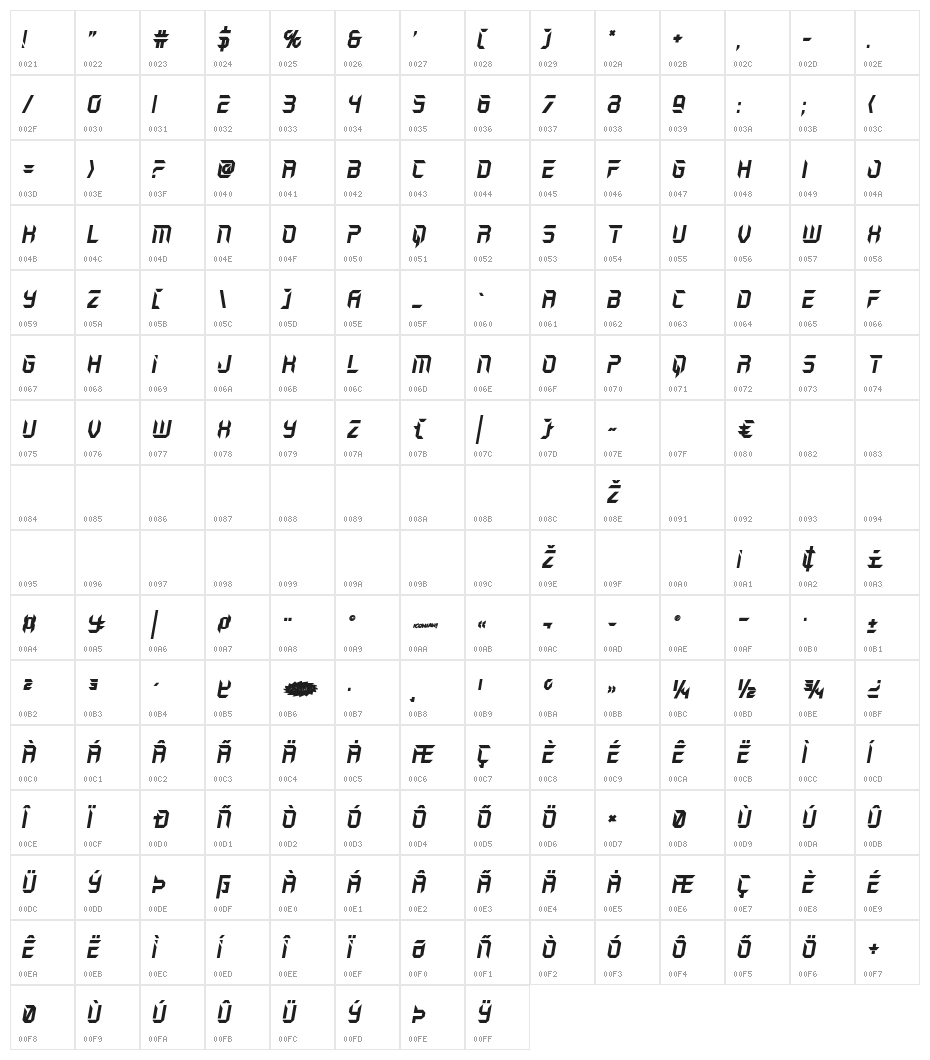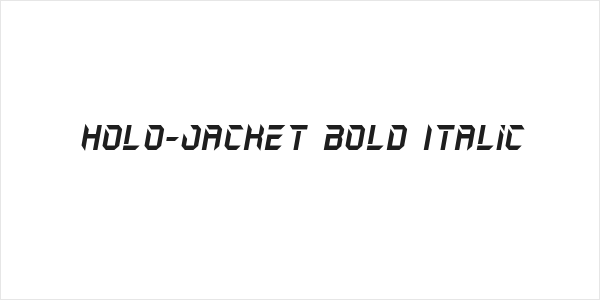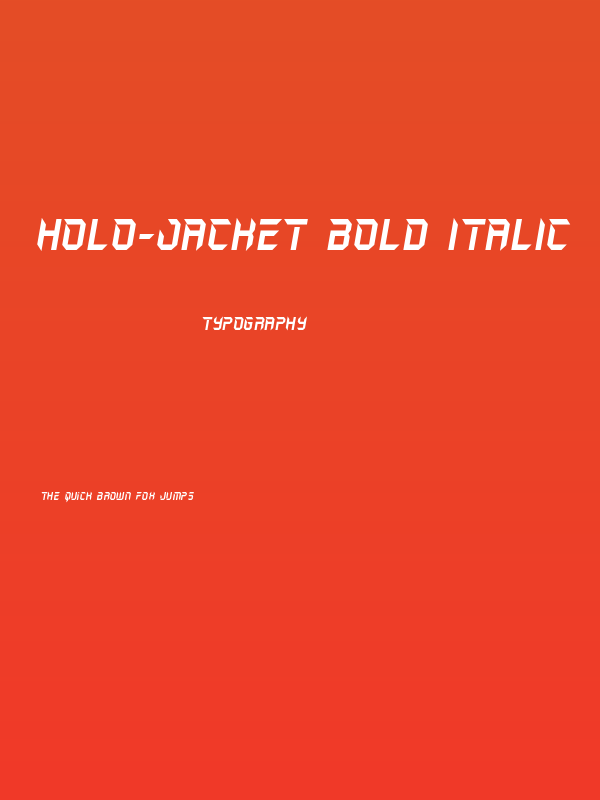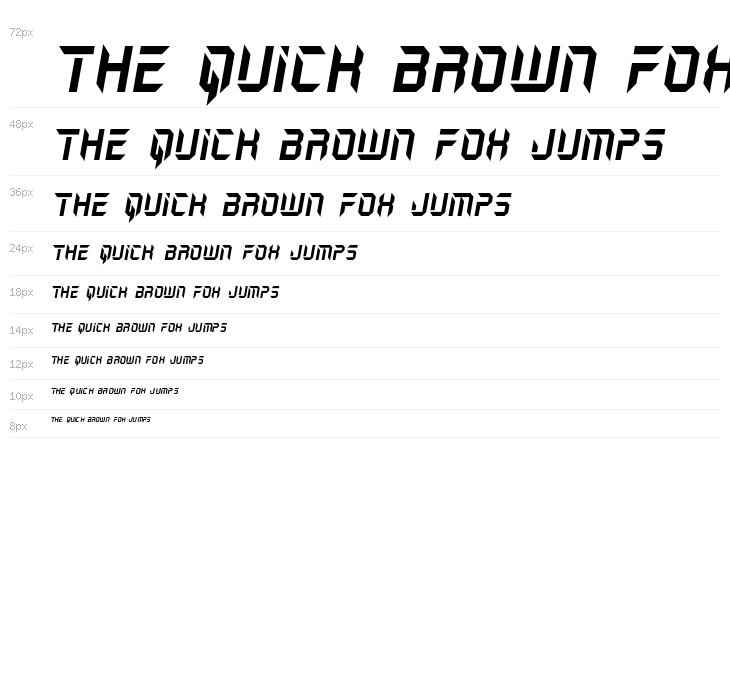
Holo-Jacket Bold Italic Font
Holo-Jacket Bold Italic Description
This font features a bold and italicized style with a futuristic and angular design. The characters are sharply cut with distinct geometric shapes, giving it a dynamic and edgy appearance. The uppercase and lowercase letters maintain a consistent slant, enhancing the italic effect. Numbers and special characters follow the same stylistic cues, ensuring uniformity across all glyphs. The font's unique design makes it stand out, suitable for projects that require a modern and tech-inspired aesthetic.
| Proposed Projects | Ideal for sci-fi themed posters, video game titles, tech branding, and modern digital interfaces. |